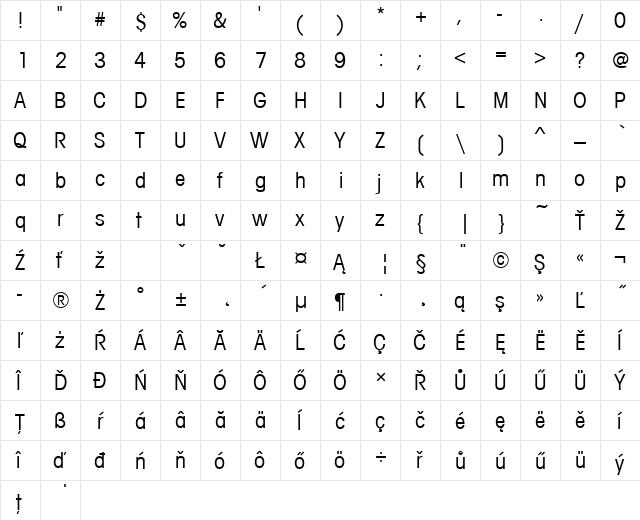
AvantGarGotItcTEECon Regular Font Preview
AvantGarGotItcTEECon Regular
Design Context for AvantGarGotItcTEECon Typeface
AvantGarGotItcTEECon is a composed and adaptable typeface that performs quietly and consistently across a wide range of design contexts.